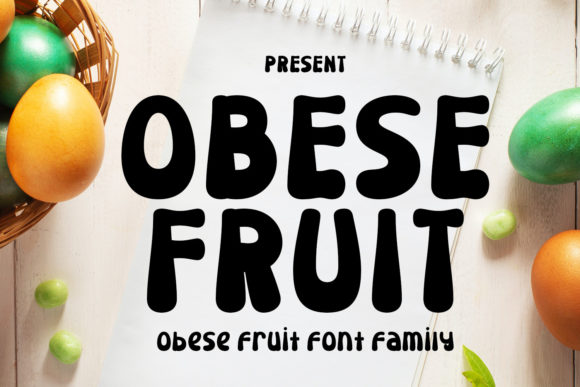
Journey into the realm of Obese Fruit, an extraordinary display font crafted by the ingenious mind of asbakwaled. Its captivating charm stems from its distinctive characters, which possess an uncanny ability to spark curiosity and intrigue. Step into a world where your designs blossom into captivating expressions of creativity, leaving an indelible mark on the hearts and minds of all who behold them.
With Obese Fruit as your creative companion, transform your culinary ventures into mouthwatering masterpieces. Its playful aura blends seamlessly with food-related designs, inviting customers to embark on a gastronomic adventure like no other. Let your imagination run wild as you create menus, packaging, and promotional materials that tantalize taste buds and leave a lasting impression.
Unleash your inner artist and let Obese Fruit ignite your passion for fashion. Its vibrant energy seamlessly intertwines with clothing screen-printing projects, resulting in garments that exude individuality and style. Elevate your designs to new heights, captivating your audience with eye-catching prints that speak volumes about your brand's ethos.
Celebrate life's joyous moments with Obese Fruit by your side. Craft heartfelt birthday cards that brim with warmth and cheer, capturing the essence of special occasions. Its whimsical nature adds a touch of enchantment to invitations, greeting cards, and any other celebratory creations, transforming them into cherished keepsakes.
Beyond these realms, Obese Fruit embarks on a myriad of crafty adventures, bringing sparks of creativity to every project it encounters. Whether you're creating posters, logos, social media graphics, or embarking on any other artistic pursuit, this remarkable font serves as a versatile tool, bending and shaping itself to suit your unique vision.
Prepare to be mesmerized as Obese Fruit becomes an integral part of your creative arsenal. Its boundless potential awaits your exploration, ready to unleash a symphony of visual wonders. Embrace its allure and watch as your designs metamorphose into captivating expressions that leave an indelible mark on the world.